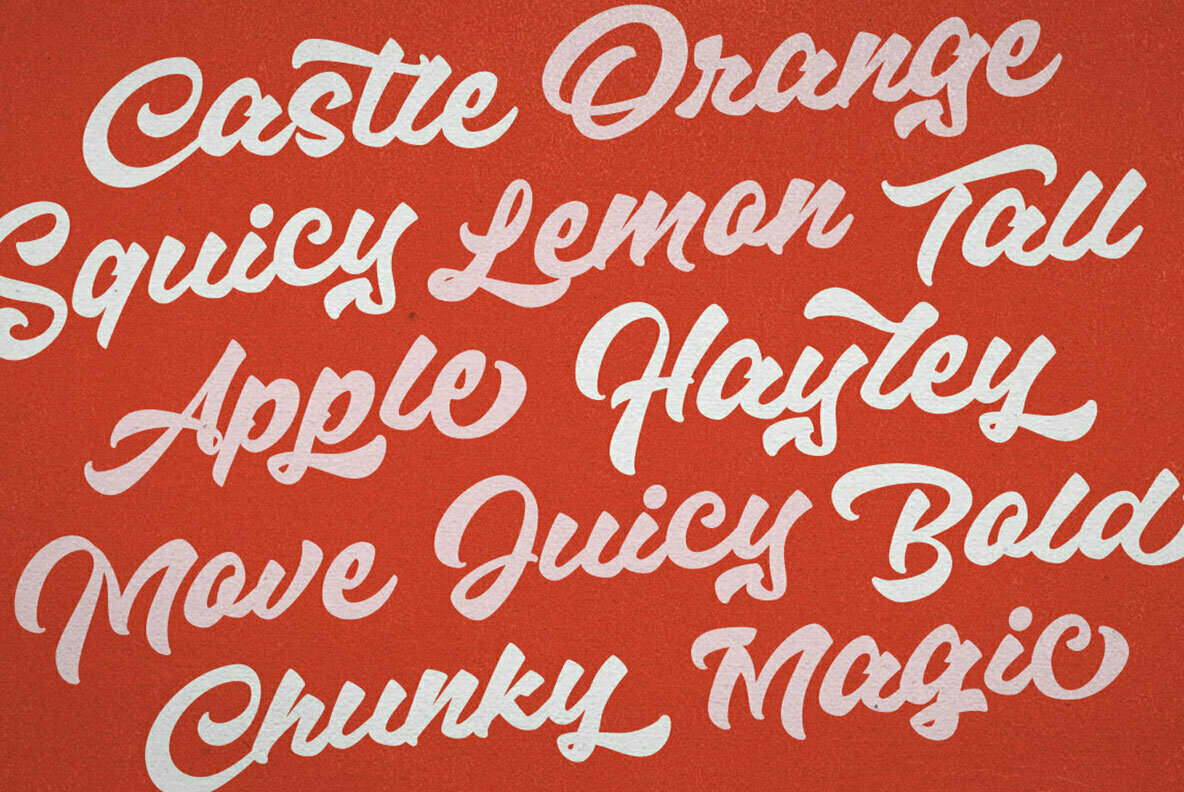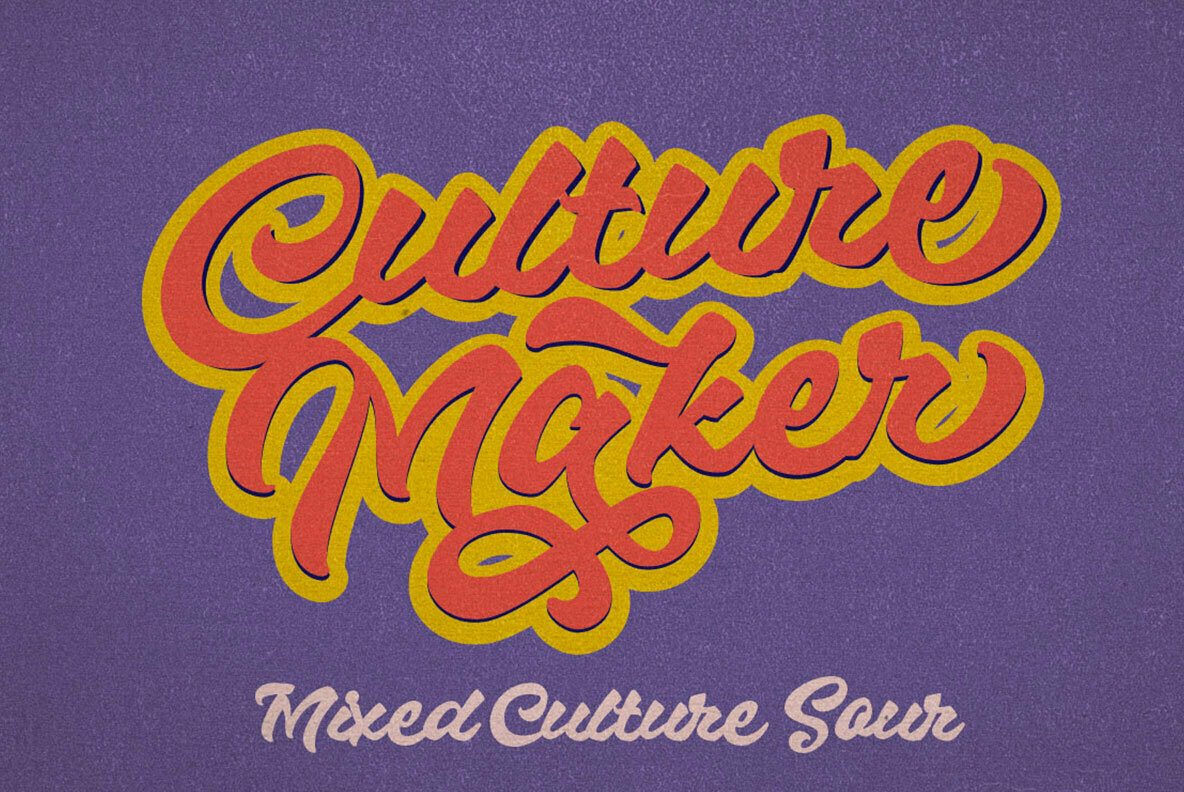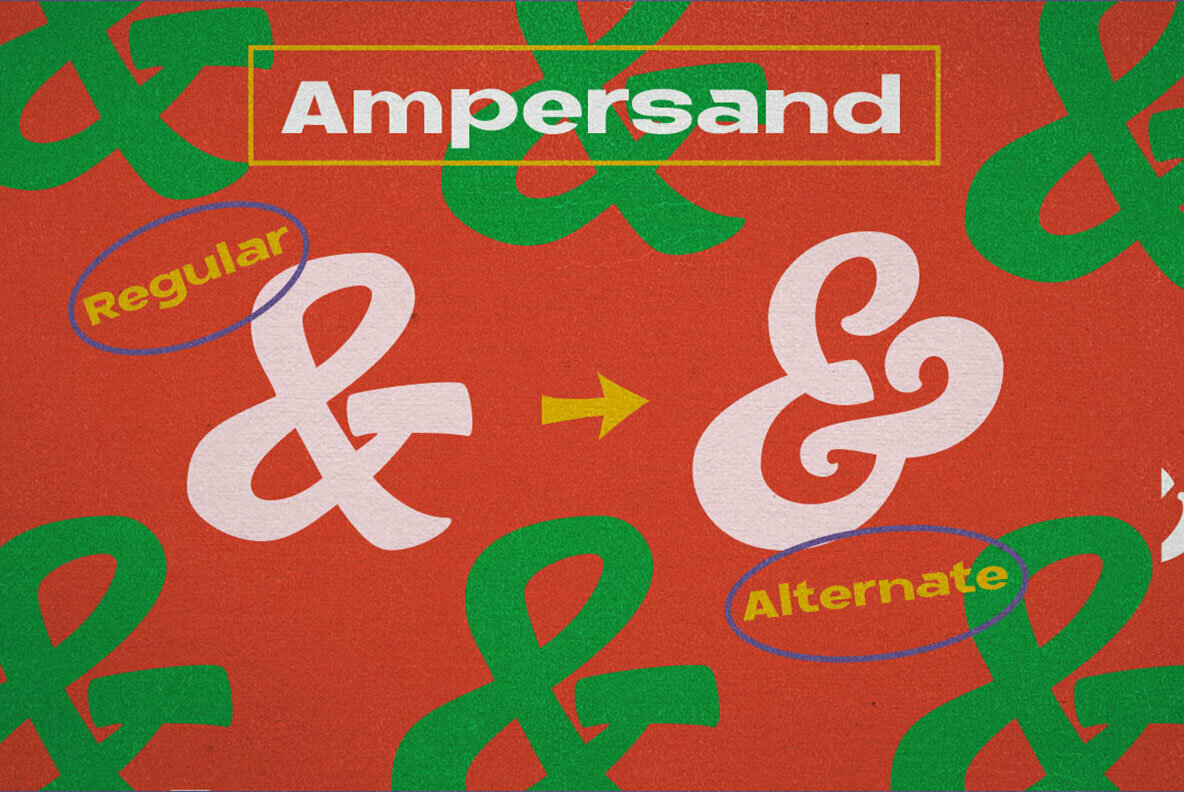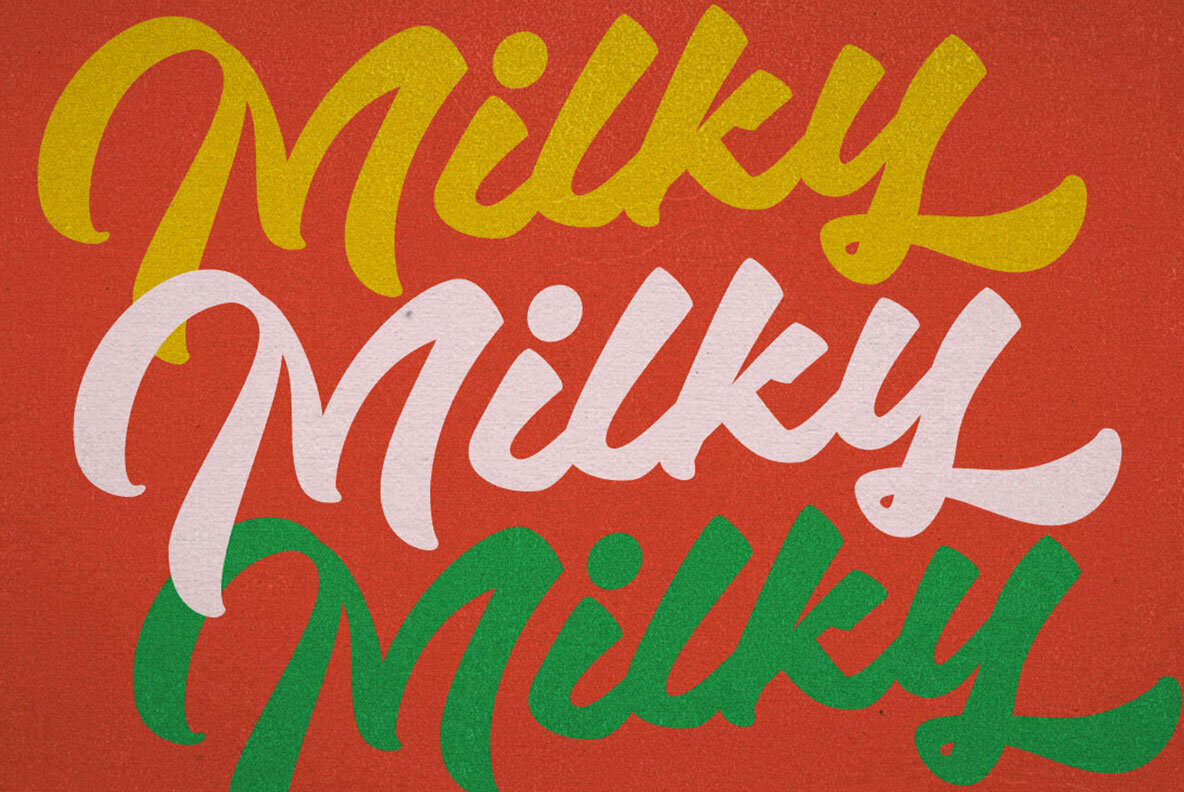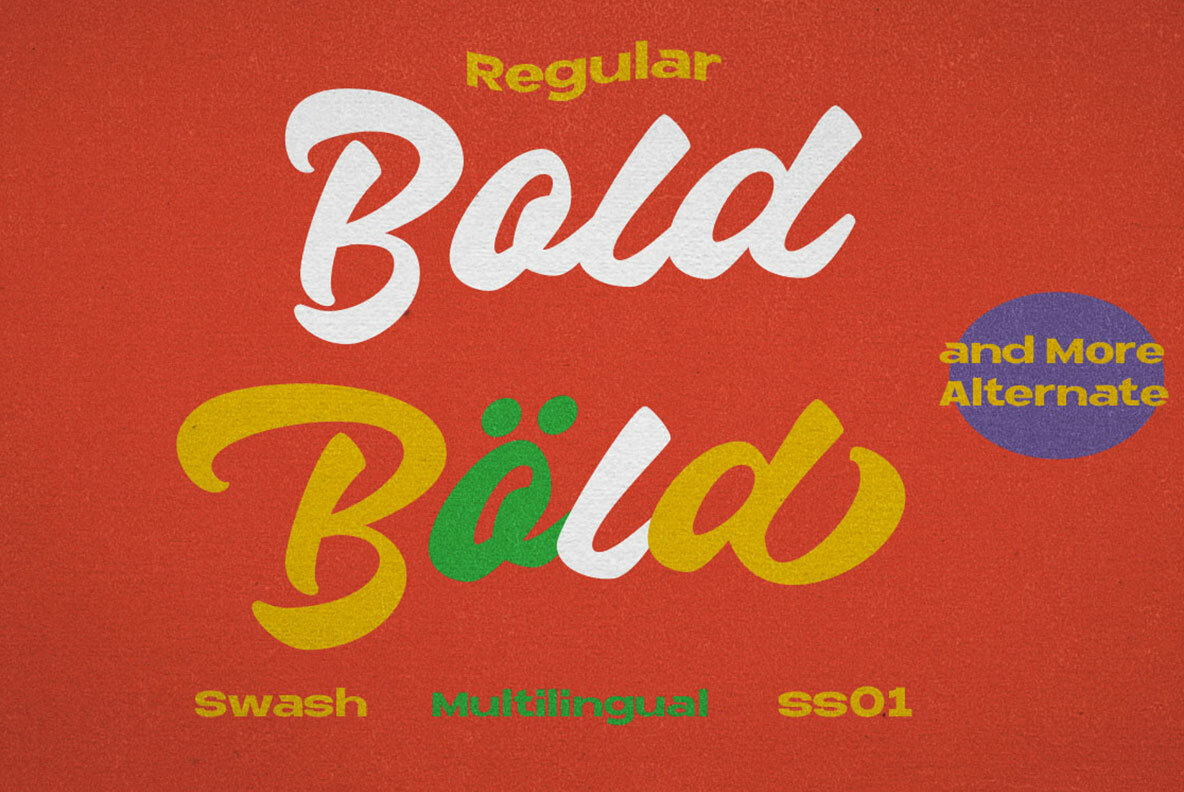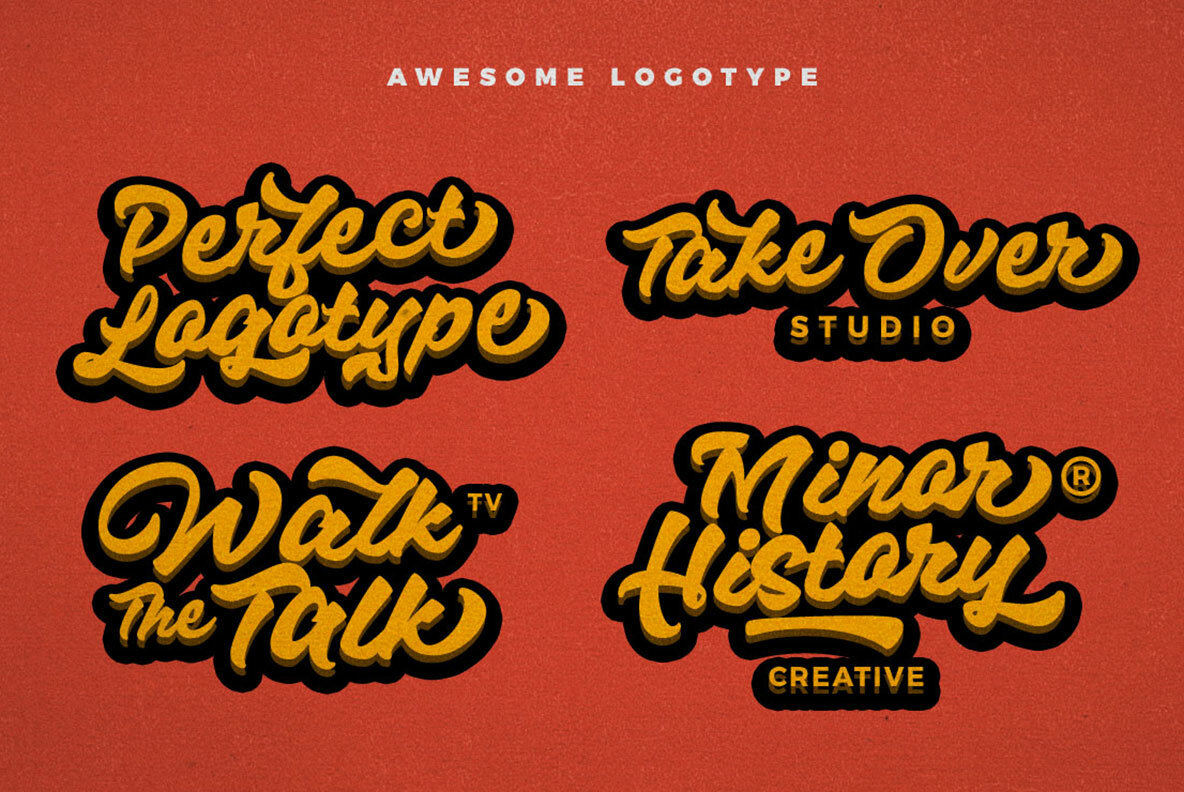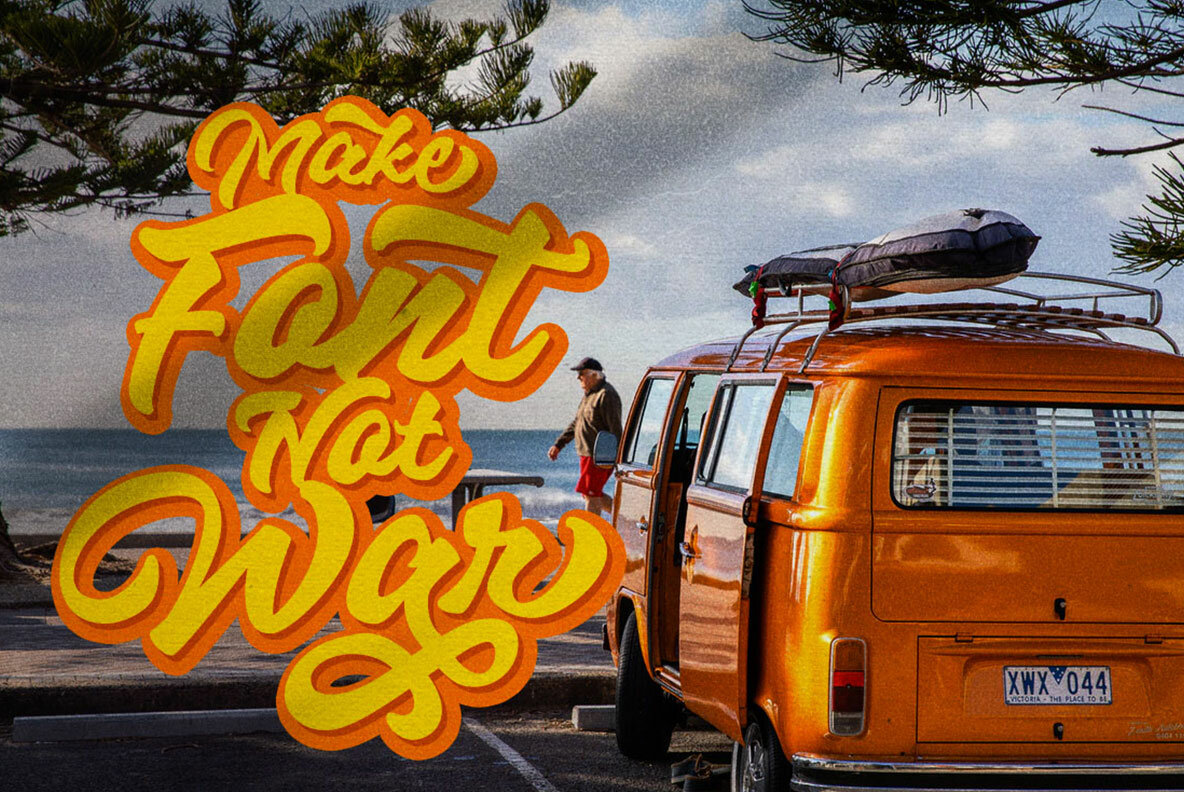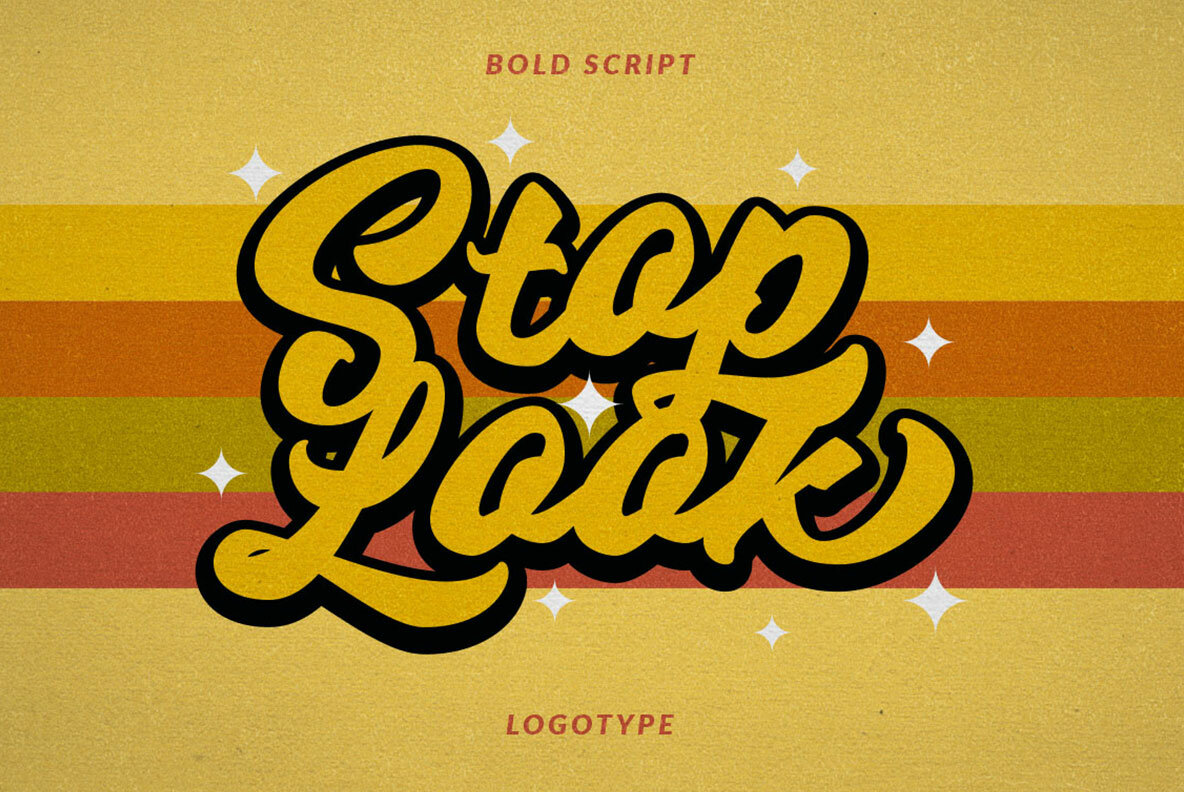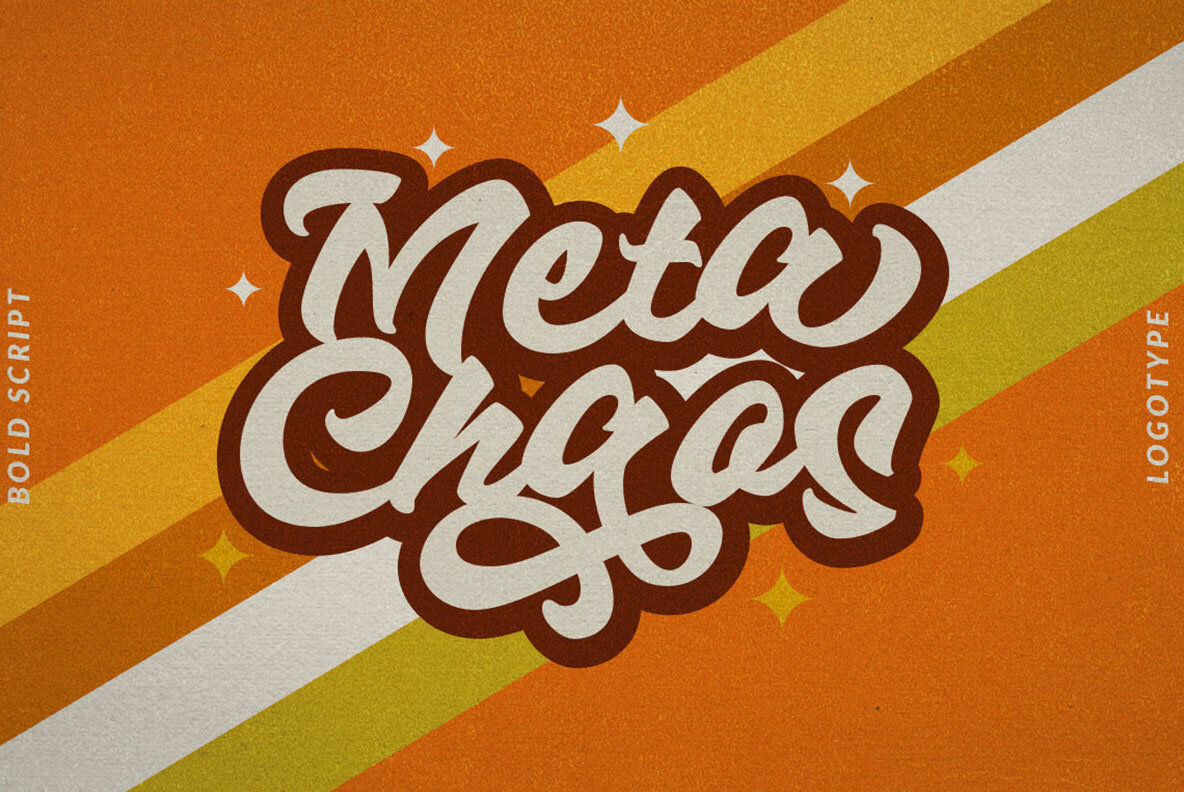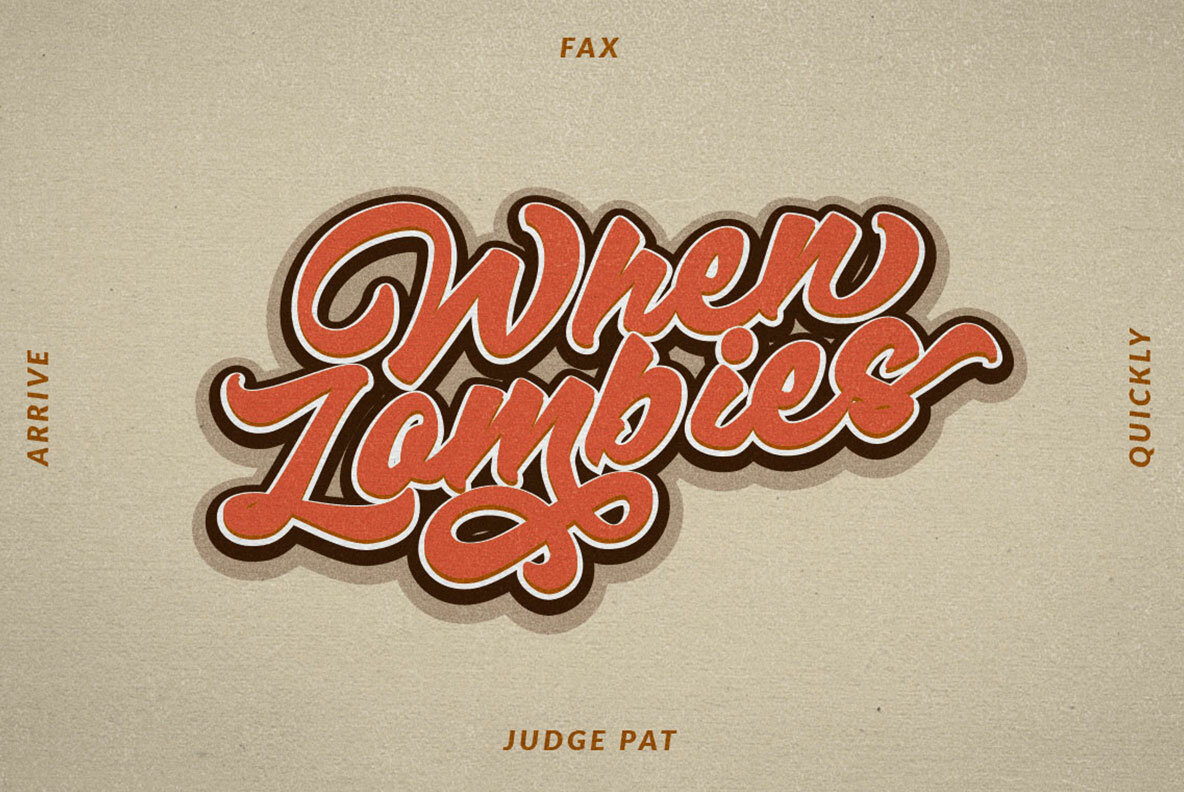
Hazzard Script Font
Hazzard Script infuses the charm of retro aesthetics with the artful flair of hand-lettered designs. Each curve is crafted to add a personal touch, making it suitable for a wide range of projects from logos to social media posts. This typeface boasts a lively baseline, perfectly complemented by a matching marker font and a set of versatile bonus swashes. Access the OpenType stylistic alternates with software that supports OpenType features, such as Adobe Illustrator, Adobe InDesign, and CorelDraw. Additionally, explore alternates through Character Map, Nexus Font, or Font Book.Hazzard Script: A Blend of Retro and Hand Lettering